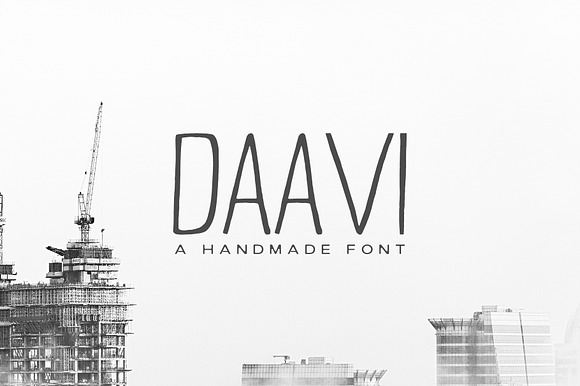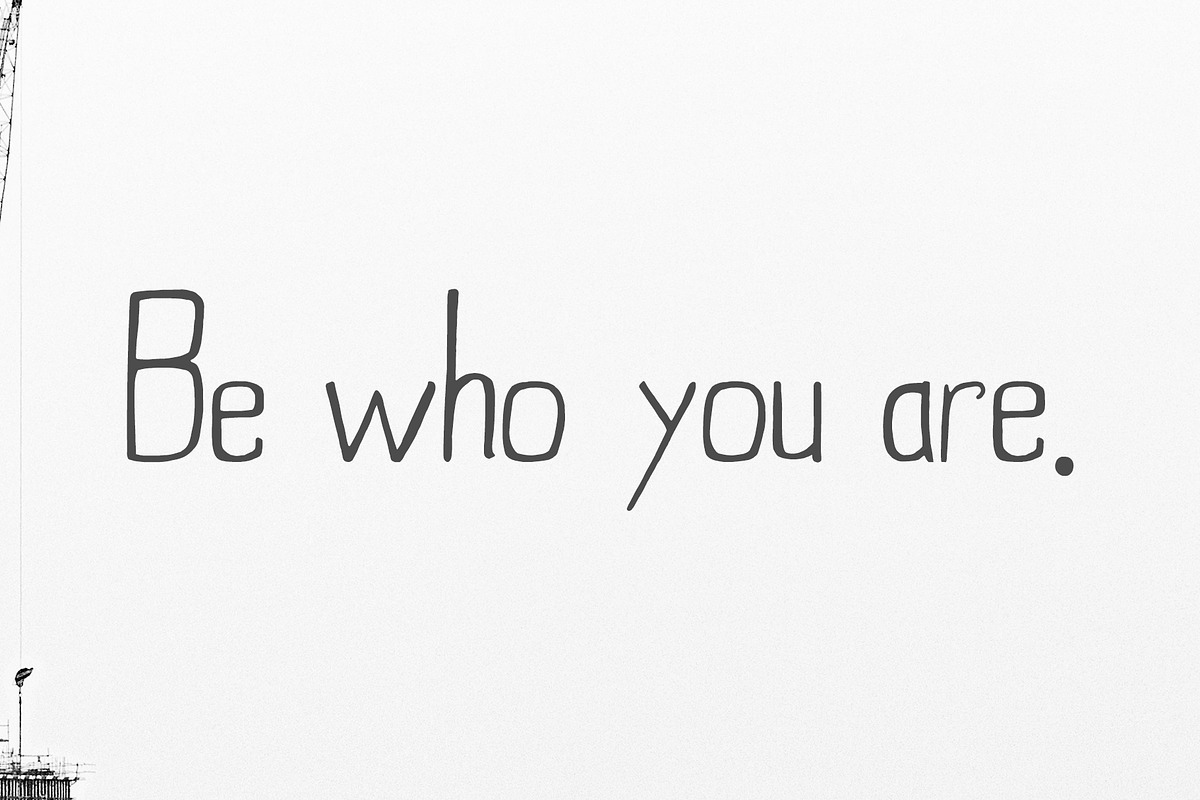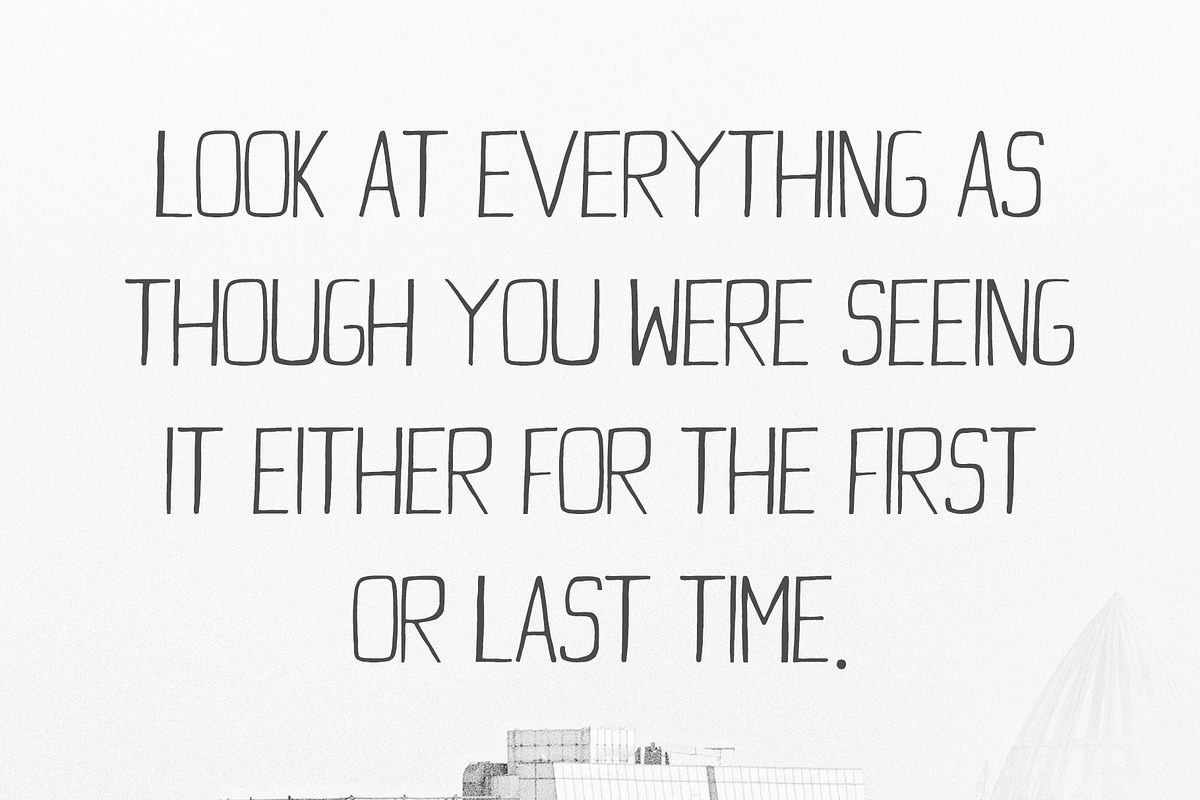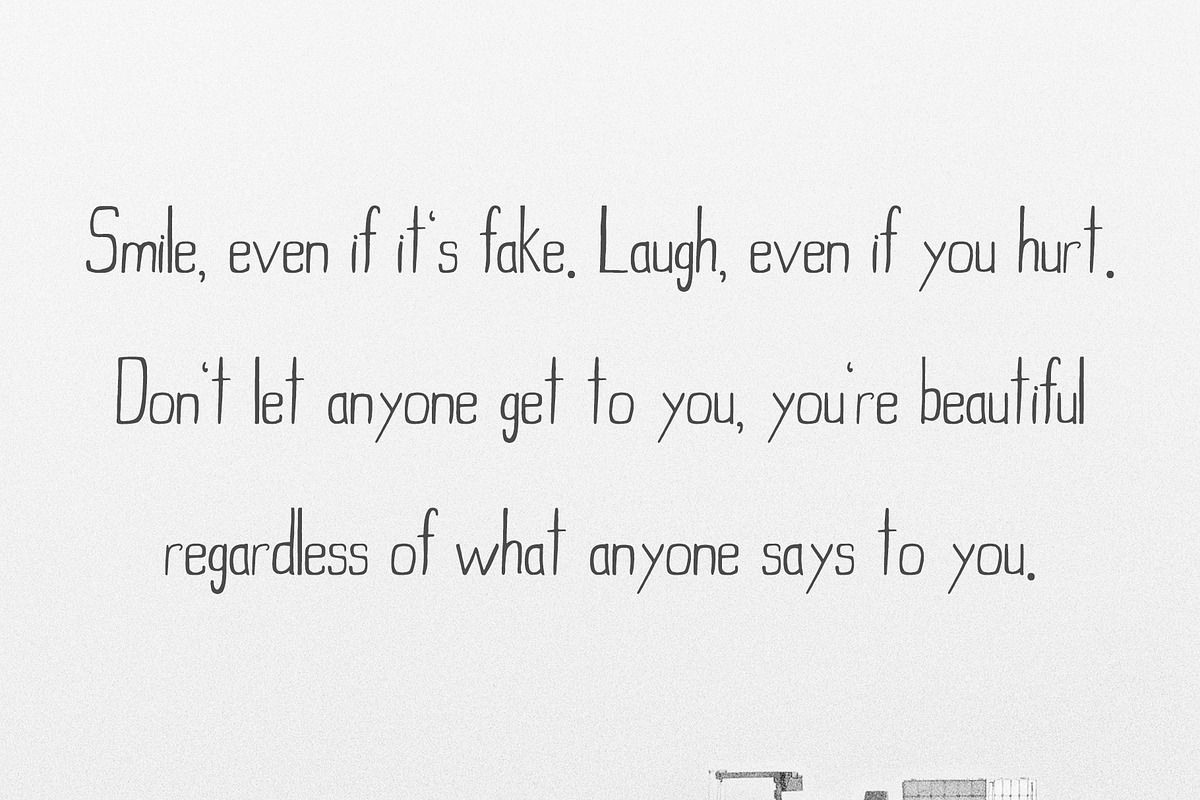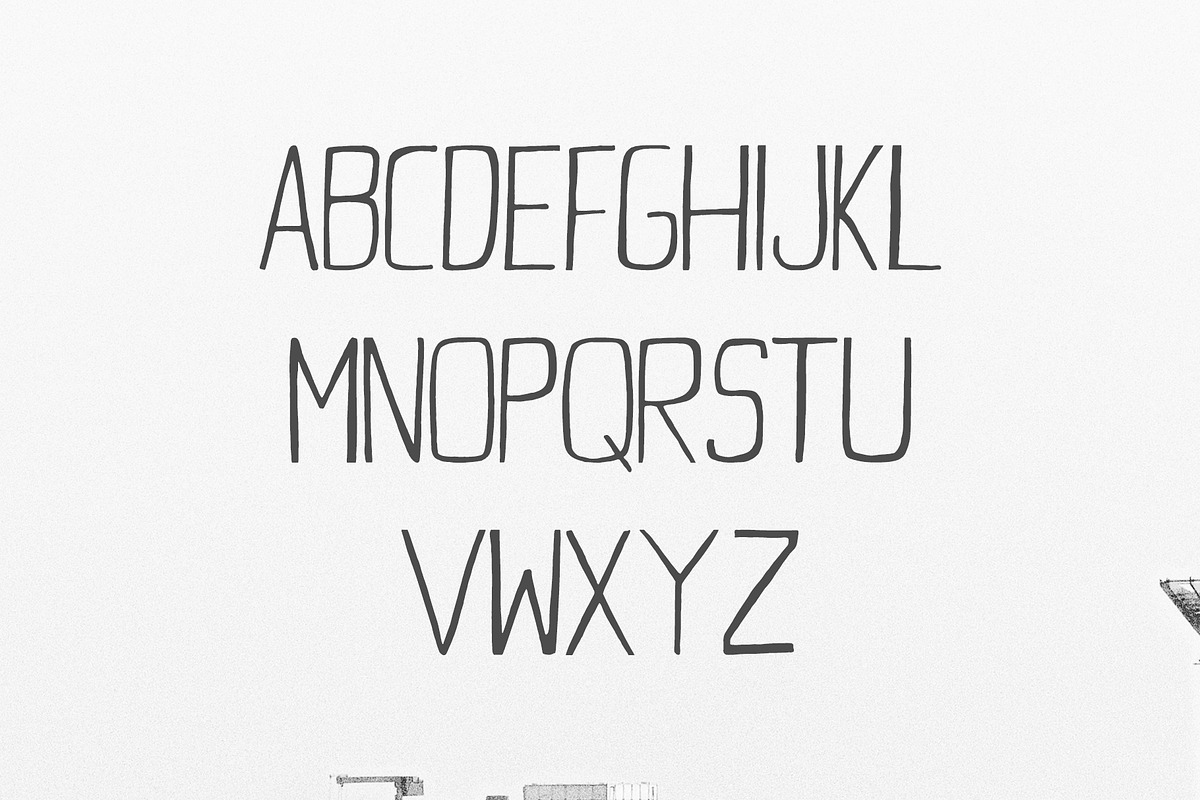
Daavi Handmade Sans Serif Font
Daavi Handmade Sans Serif Font is a modernistic handmade font written with soft hand to create a finest quality font. Daavi looks perfect for greeting cards, branding materials, wedding postcard, business cards, quotes, posters, small business, book covers, stationery, marketing, magazines and more.
Daavi Handmade Sans Serif Font by Creativetacos fits naturally into Branding, posters, packaging, typography.